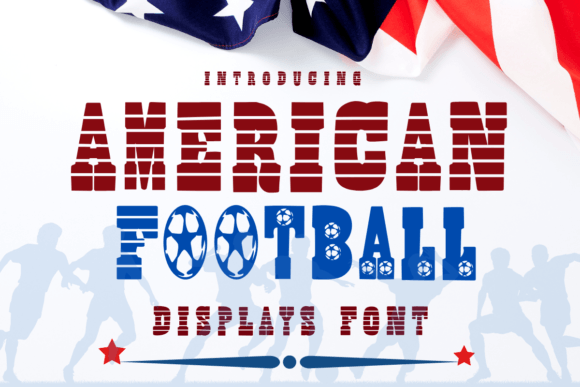
The Ultimate Guide to American Football Font: Score Big with This Fun and Sporty Font
This fun and sporty font is perfect for any football-themed project, and I’m excited to share my experience with you. In this article, we’ll dive into the world of American Football Font, exploring its features, how to use it, and some similar fonts you might love.
• ✅ Unique and playful design with footballs decorating the letters
• ✅ Perfect for football-themed projects, such as team branding, posters, or social media graphics
• ✅ Easy to read and understand, even at smaller font sizes
• ✅ Great for crafting a fun and energetic vibe
• ⚠️ Some letters may not be suitable for body text due to their decorative nature
• ⚠️ Limited use outside of football-themed projects (but that’s not necessarily a bad thing!)
The American Football Font was designed with one goal in mind: to create a fun and sporty font that captures the energy and excitement of football. The designer, a sports enthusiast and typography lover, wanted to create a font that would make football fans smile. With its unique design and playful vibe, American Football Font is sure to score big with designers and football fans alike.
Q: Is American Football Font suitable for body text?
A: While American Football Font is easy to read, its decorative nature makes it more suitable for titles, headings, and short paragraphs.